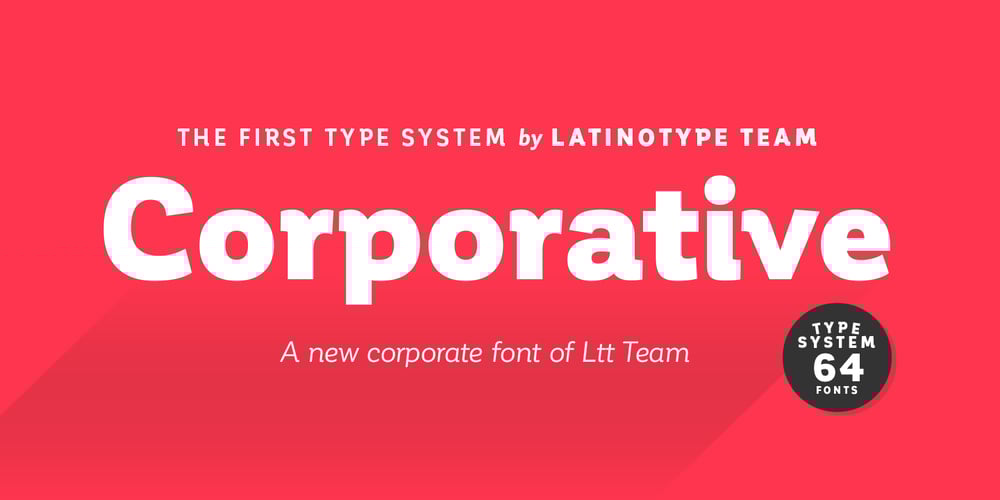
Corporative Font Family was designed by Luciano Vergara, Daniel Hernández, Latinotype Team and published by Latinotype. Corporative contains 63 styles and family package options. The first typeface developed by Latinotype Team. Corporative is a semi serif font that has a marked personality and distinctive traits, what makes it suitable to be used at large text sizes.Since it is a condensed font, it can also be used in smaller sizes. Corporative and Corporative Sans come with the Latinotype’s standard set of 350 characters, making it possible to use the font in 128 different languages. Corporative provides users with a wide range of characters, weights and widths for every project. By combining different variants,designers can achieve the best results. The family consists of 64 fonts: a basic family that includes 8 weights plus italics, an alternative family of 8 weights with matching italics and 2 condensed families, one regular and one alternative, both with italics. Latinotype has added new faces to its team. Latinotype Team nowcomprises: Javier Quintana, César Araya, Bruno Jara, Luciano Vergara and DanielHernández. Corporative was created by Latinotype Team and developed by Javier Quintana and César Araya, under the supervision of Luciano Vergara, Miguel Hernández and Daniel Hernández.